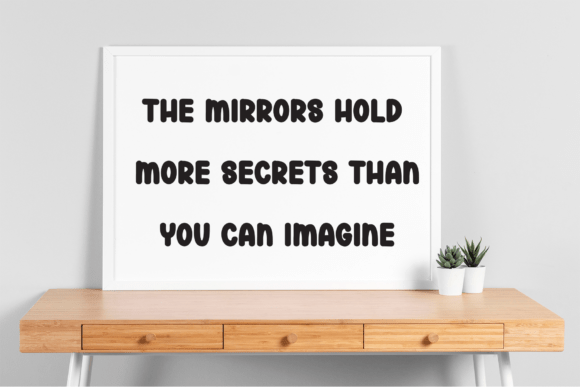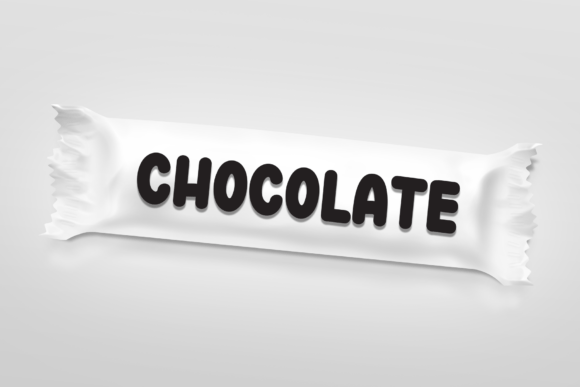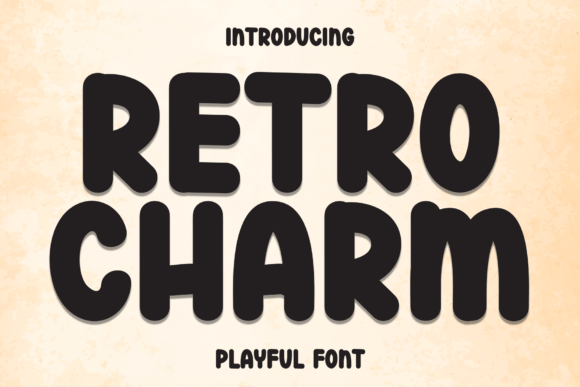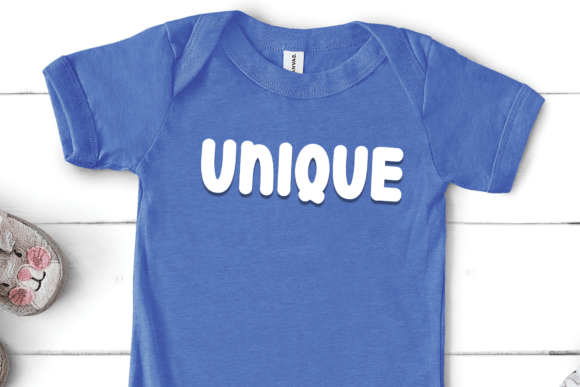
Retro Charm Font: A Playful Sans Serif for Cute Designs
About the Retro Charm Font
Explore the possibilities with Retro Charm Font, a font that offers both beauty and functionality. Retro Charm is a playful, bubbly display font inspired by vintage aesthetics. Its bold and rounded letterforms evoke a nostalgic vibe while keeping a cheerful, contemporary touch—ideal for logos, kids’ projects, and retro-themed branding.
Retro Charm excels in headlines, short titles, and logos where its playful energy can shine. It’s also well-suited for packaging design, particularly for products targeting a younger demographic or those with a vintage aesthetic. However, its bold forms and relatively large x-height make it less than ideal for body text or long paragraphs; readability suffers at smaller sizes.
Pairing Retro Charm with a clean sans-serif like Helvetica Neue or a more geometric sans-serif would create a strong contrast, balancing its playful nature with a touch of modernity. For a softer feel, consider pairing it with a delicate script font; this works particularly well in branding projects needing both a vintage charm and an elegant touch.
The font’s overall personality is best described as cheerfully nostalgic and bold, yet approachable. Brands focused on fun, playful products or services—think ice cream parlors, children’s clothing lines, or retro-themed cafes—will find this font a perfect fit.
Retro Charm Font Usage Examples
Retro Charm Font Example